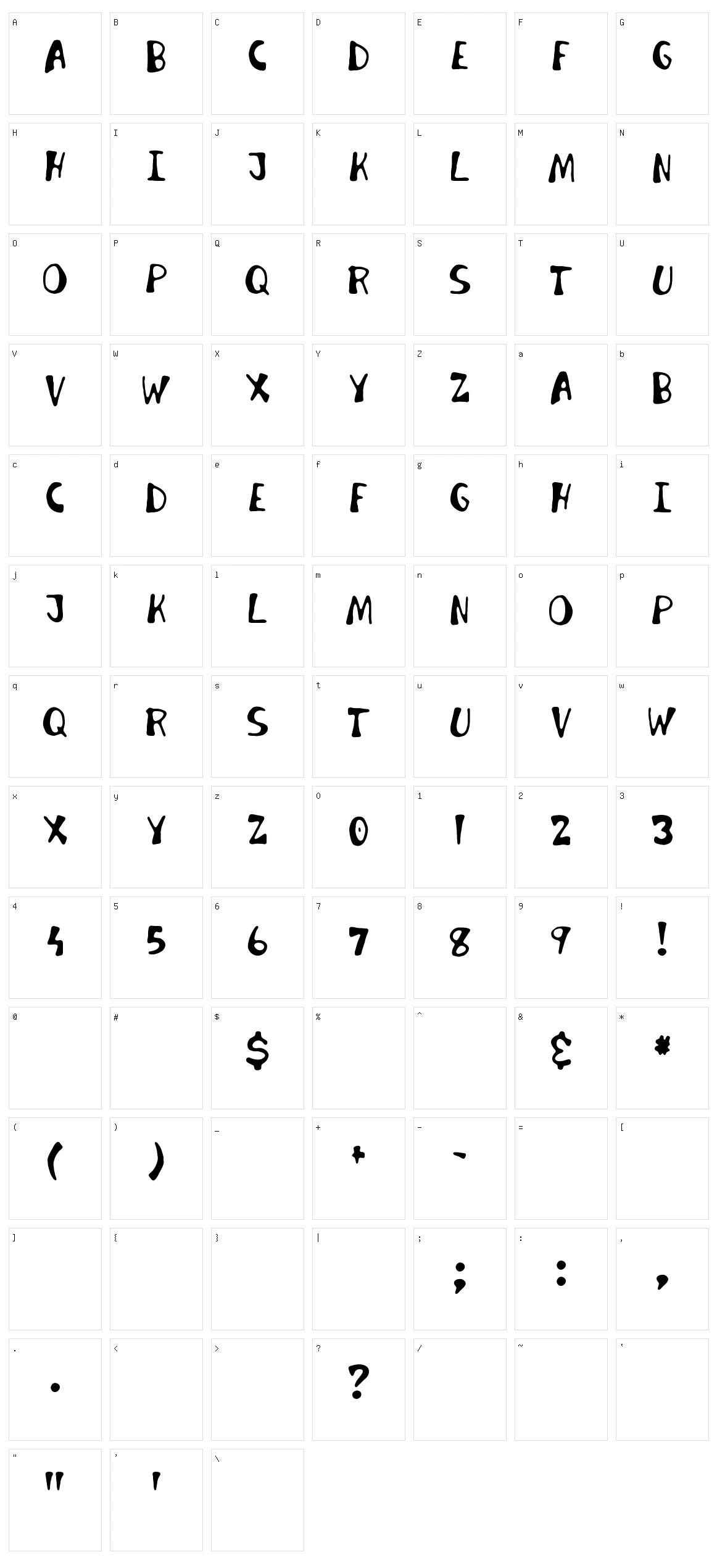
INVADER CANDY
A TrueType Font by S. John Ross
Here's a very simple, friendly, bouncy sort of poster font floating somewhere in the realm between funky and groovy and goofy and cartoony (which, on the map, puts it just south of the river here in Austin). I built Invader Candy from hand-drawn doodles, smoothed it a bit digitally, and called it good.
Invader Candy is an all-caps poster font with letters, numerals, and a few assorted punctuation marks. Enjoy!